Want to make your PowerPoint presentations really pop? The secret's in the fonts! Cool PowerPoint fonts aren't just about looks. They set the vibe, help get your point across, and keep everyone interested.
Match the Presentation's Feel
Once you know your font is readable, think about the mood you want to set. Fonts can give off different vibes. For example, if you're doing a presentation, fonts like Playfair Display or Montserrat can add a touch of class. Want a more business-like feel? Try clean, simple fonts like Raleway or Roboto.
The right choice helps get your message across and adds some personality, so go with what feels right for your topic.
Top 15 Fonts
Now that you know how to pick a font, let's look at some of the best ones for PowerPoint! These fonts can be clean and new or artsy and bold. They're sure to make your slides stand out. They are spot on for business or creative presentations.
1. Rutina Grace
Rutina Grace is a lovely font with a bit of old-school charm and a fresh feel. Its curves and details make it great when you need a professional, classy look.
Rutina Grace is easy to read but still has a touch of style. It's great for titles, quotes, or anything that needs to make a statement. Try it with a simple font for the main text to create a nice contrast.
2. Brisol
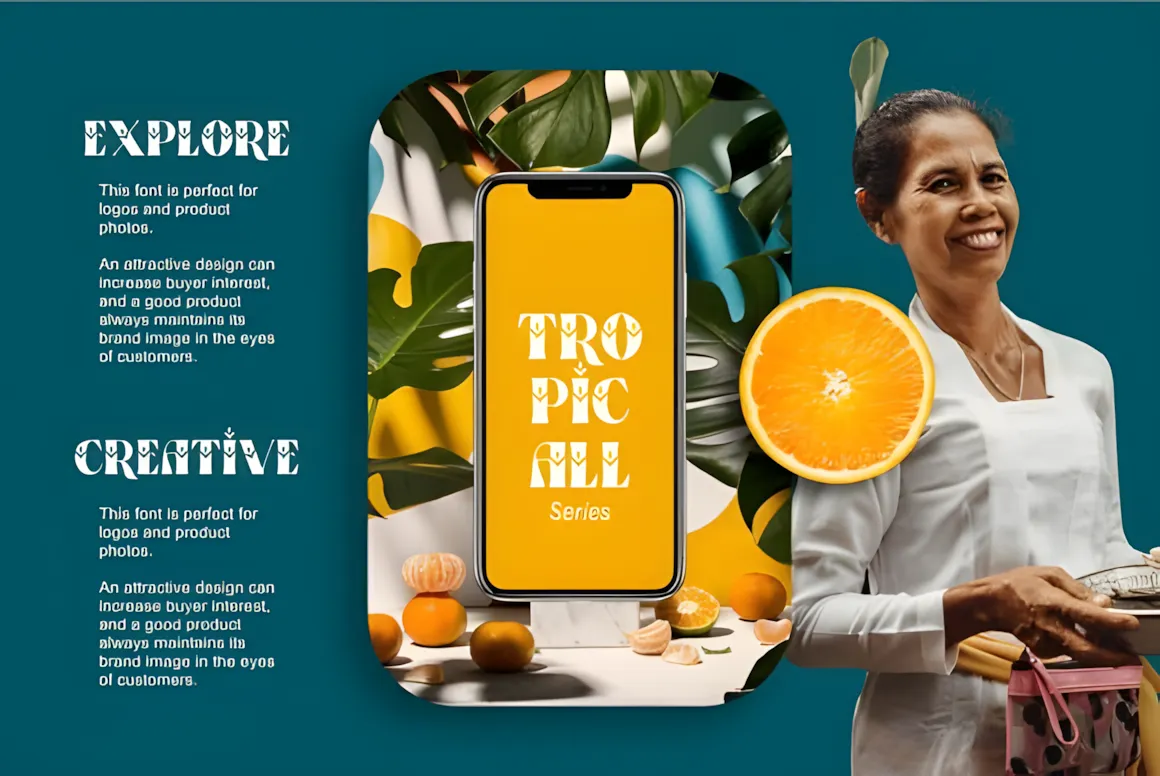
Bristol is a stylish font that mixes classic and modern styles. It's simple and well-balanced, so it's great for presentations that need to look professional and polished.
Bristol looks bold and classy, and it's easy to read. It works well for titles, quotes, or anything that needs to grab attention. Use it with a simple font for the main text to keep things balanced.
3. Flamingo
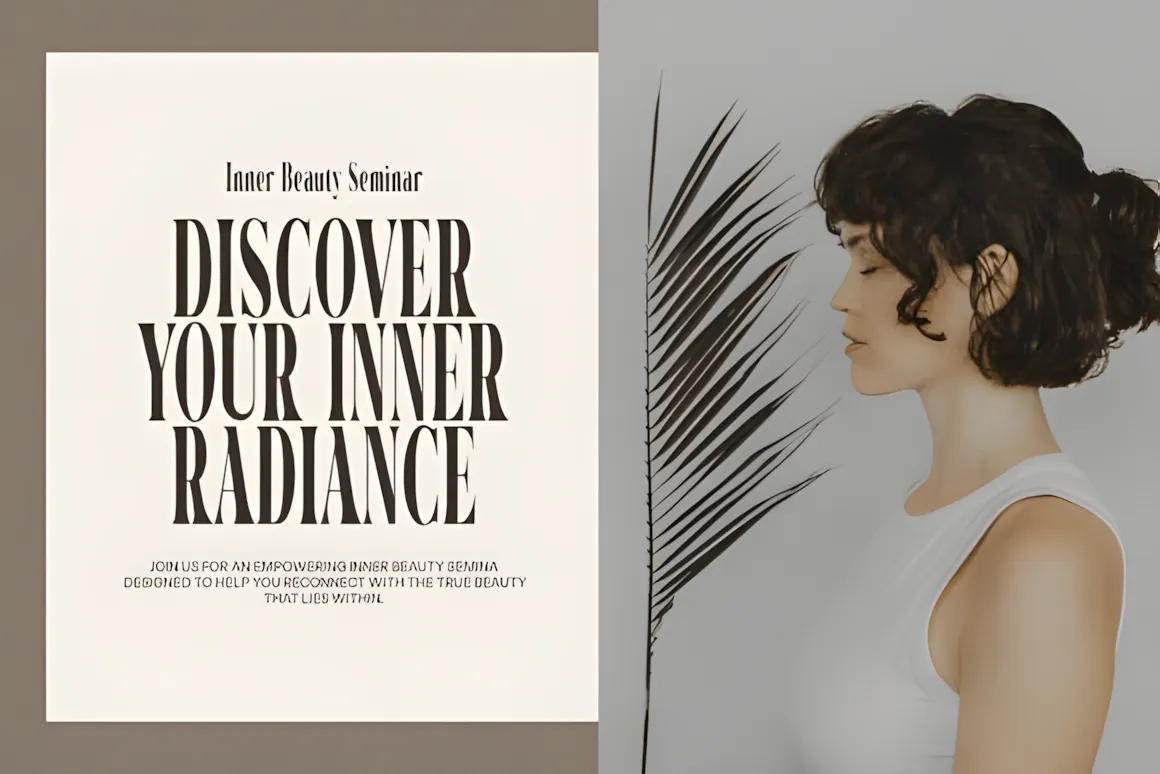
Flamingo is a new font that blends modern and vintage styles. Its stylish details and smooth curves make it a great choice for presentations that want to feel classy and modern.
This font is balanced and easy to read, but it still has personality so your slides don't look boring. It's great for titles, quotes, or anything that needs to make a statement. Using it with a simple font for the main text will create a nice contrast and improve your presentation.
4. Estetique
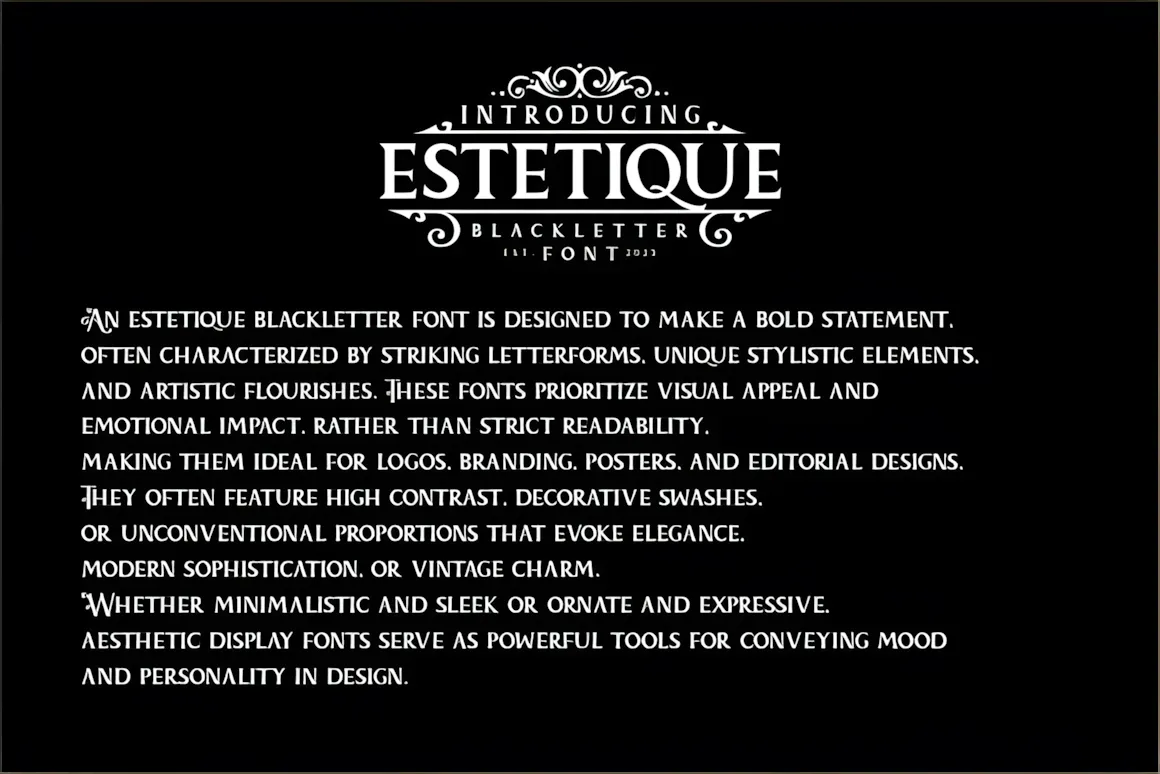
Estetique is a modern font that looks fancy and stylish. It's clean and has a few curves, making it perfect for presentations that need to show off some class.
This font is sleek so it is easy to read. It makes your slides look great. It's perfect for titles, quotes, or anything that needs to make a stylish statement. Try it with a fancy font for the main text to create a nice contrast.
5. Higlean
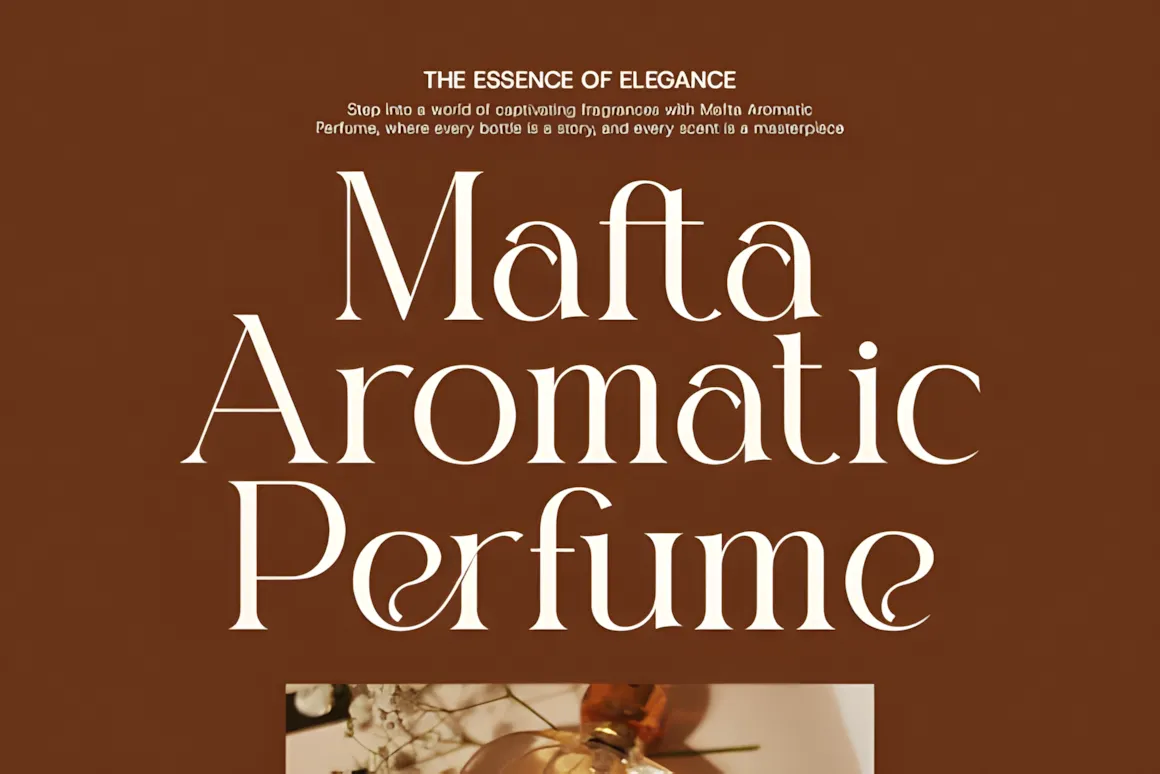
Higlean is a modern serif font that combines new and old styles. Its detailed lines look great in presentations that need to feel professional and stylish.
The simple design of this font makes it easy to read and adds some style to your slides. It's great for titles, quotes, or anything that needs to make a statement. Try it with a simple font for the main text to create a balanced look.
6. Cellien
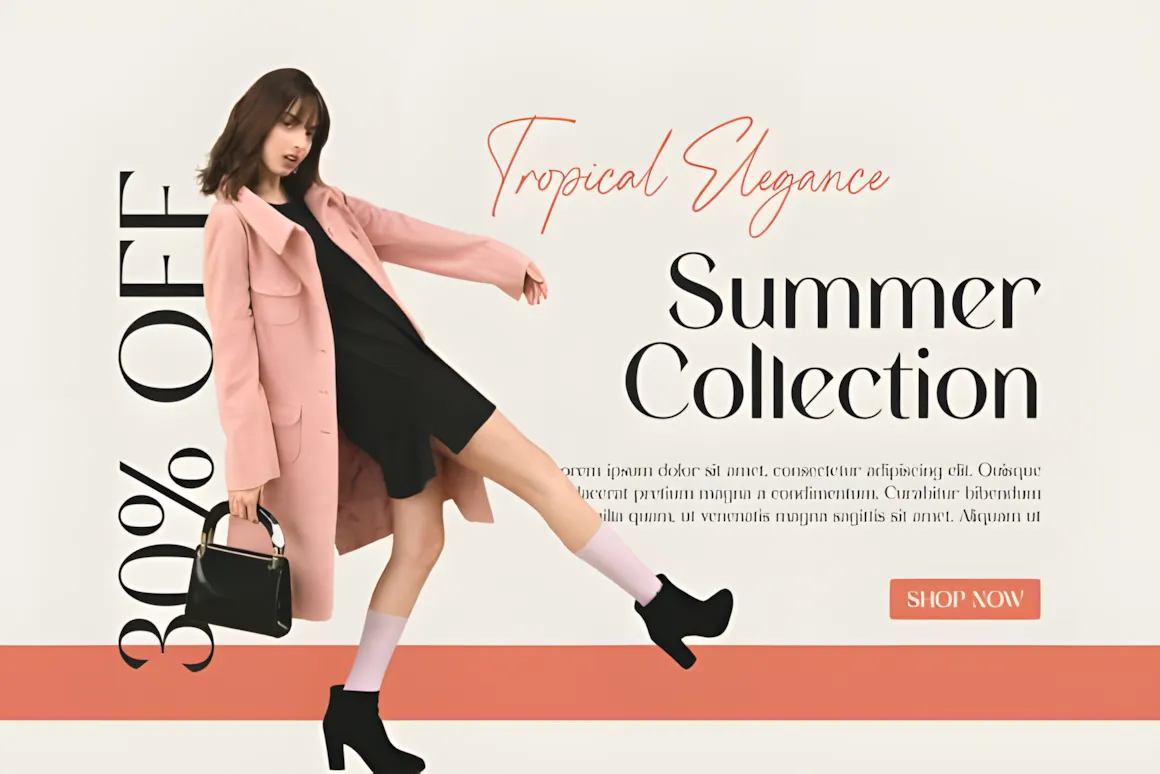
Cellien is an advanced font, both modern and classic. Its lines give it a great look for presentations that need to be stylish and business-like, not compromising on clarity. Put it in titles, quotes, or anything that needs to make a classy statement. A mix of Cellien with a simple font for the main text will make the perfect contrast and maintain the style of your presentation.
7. Melona Woman
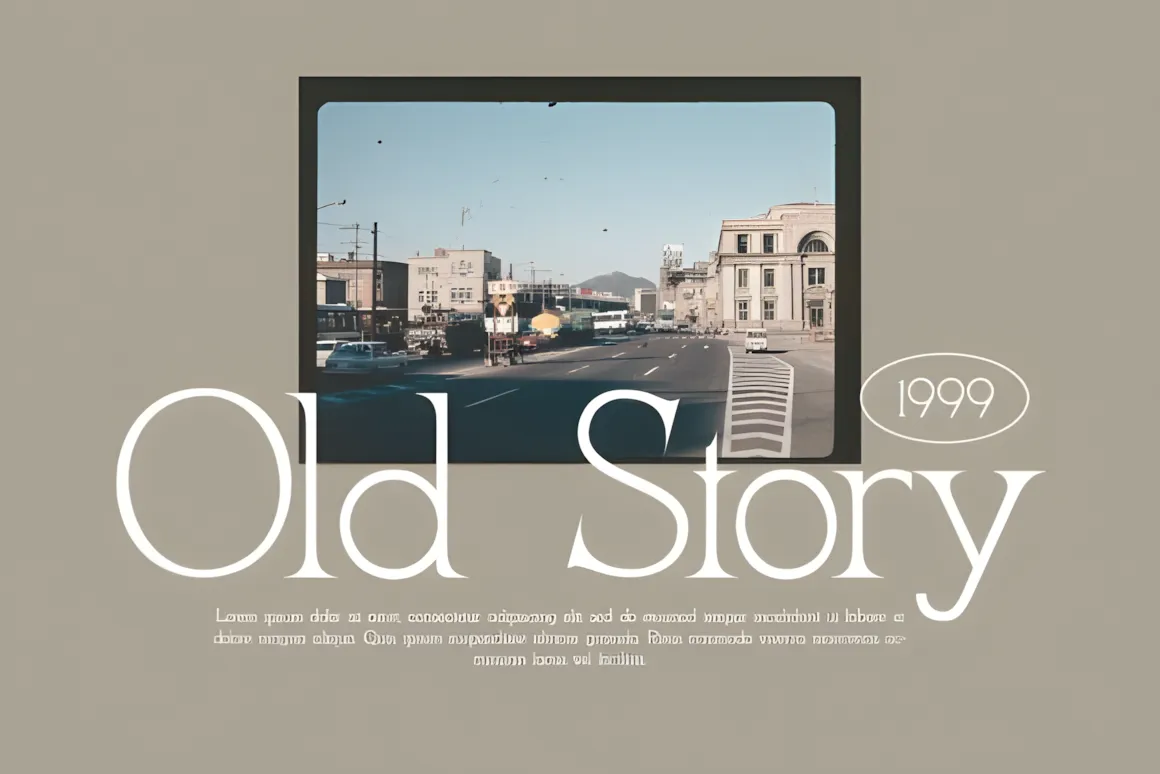
Melona Woman is a fancy font that adds personality to your presentation. Its flowing design makes it great for presentations that need a personal, artsy touch.
Melona Woman is great for a title slide, a quote, or anything that needs to make a statement. It looks balanced when used with a simple font as the main text.
8. Saficel
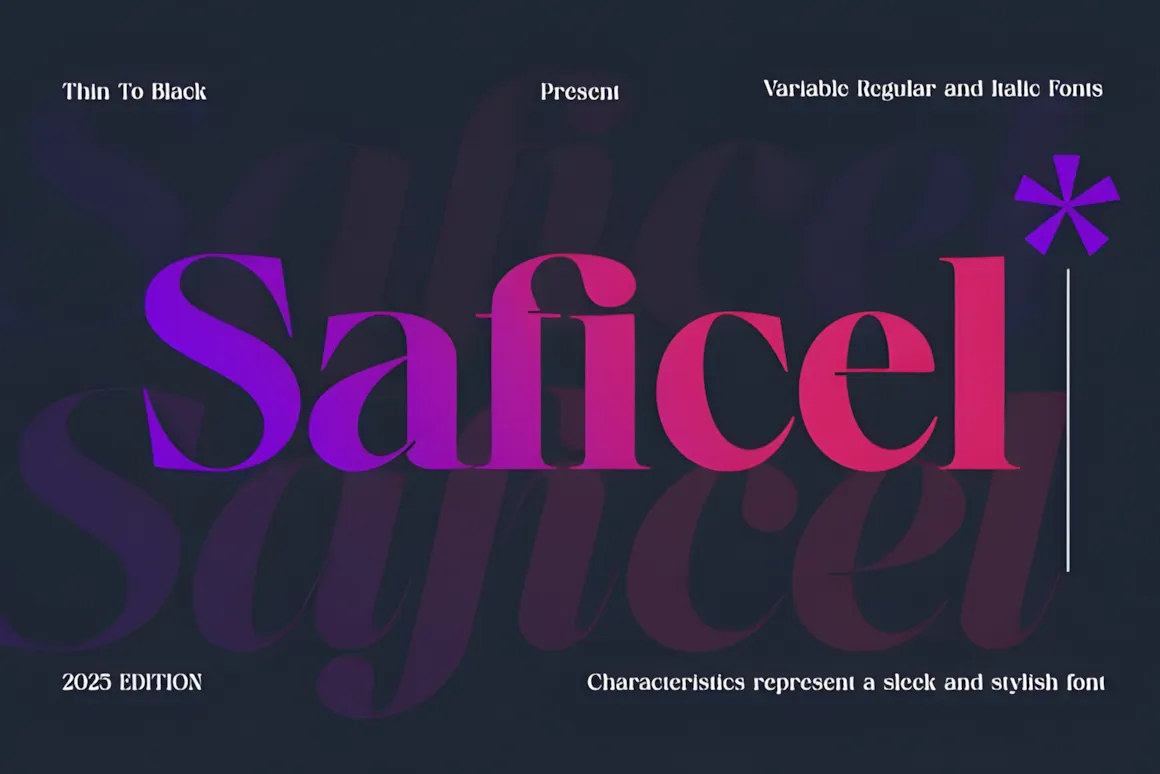
Saficel is a modern font. It is ideal when you need to do a business presentation and make sure the audience follow the point.
The lines make Saficel ideal for titles and body text. It looks fresh, pair it with another font to show a contrast on your slides.
9. Balancing
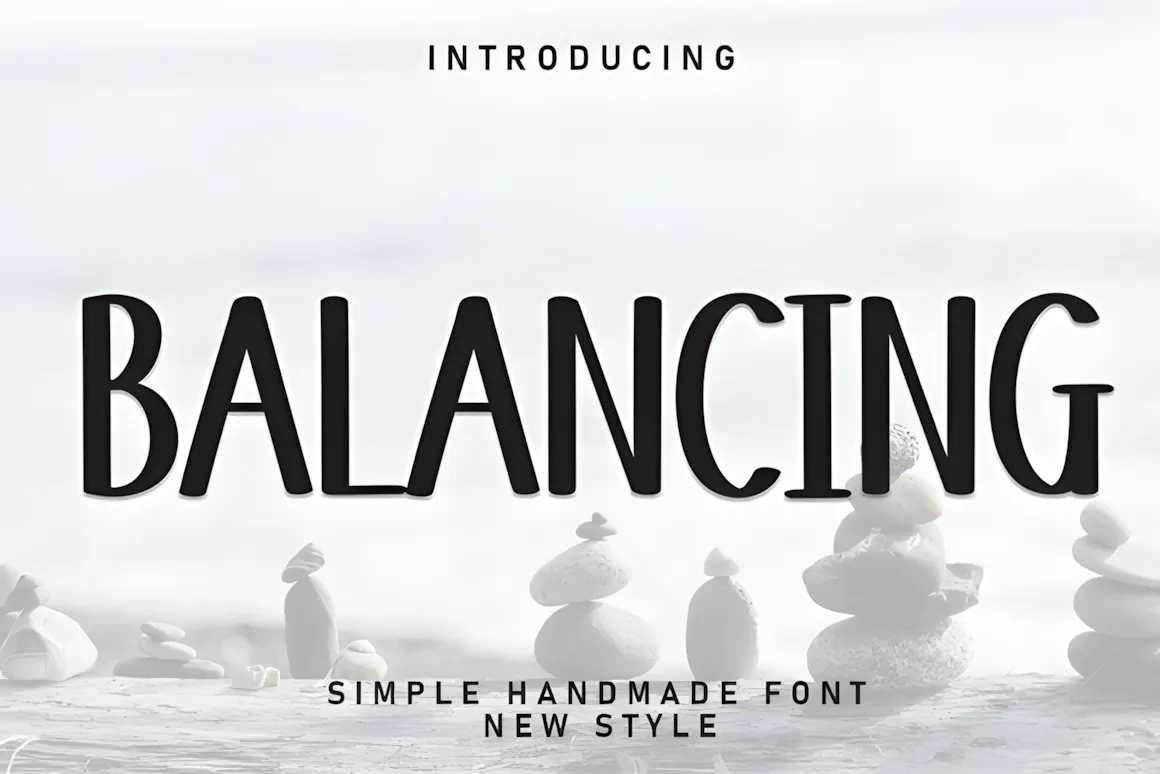
Balancing is a font with a modern vibe. It is awesome in presentations.
Balancing is easy . Your slides will be eye-catching, with an easy design to read and follow. You can use it as a title font and mix it with another body-text to create an elegant contrast.
10. Dringk
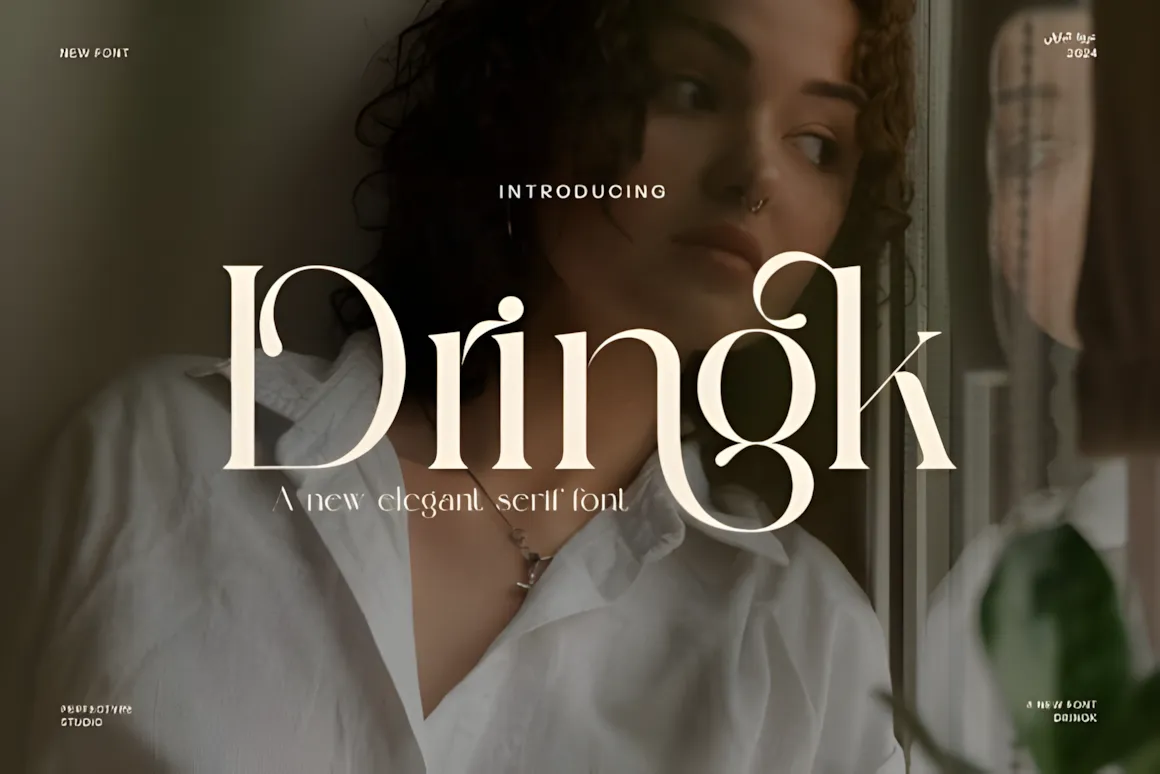
Dringk is a fun font that will add a touch of personality to your slides. Its style makes it great for presentations, where charm is the goal.
It is awesome to stress words or use it on a heading . Pair it with a normal font to make it easy to follow.
11. Molcer
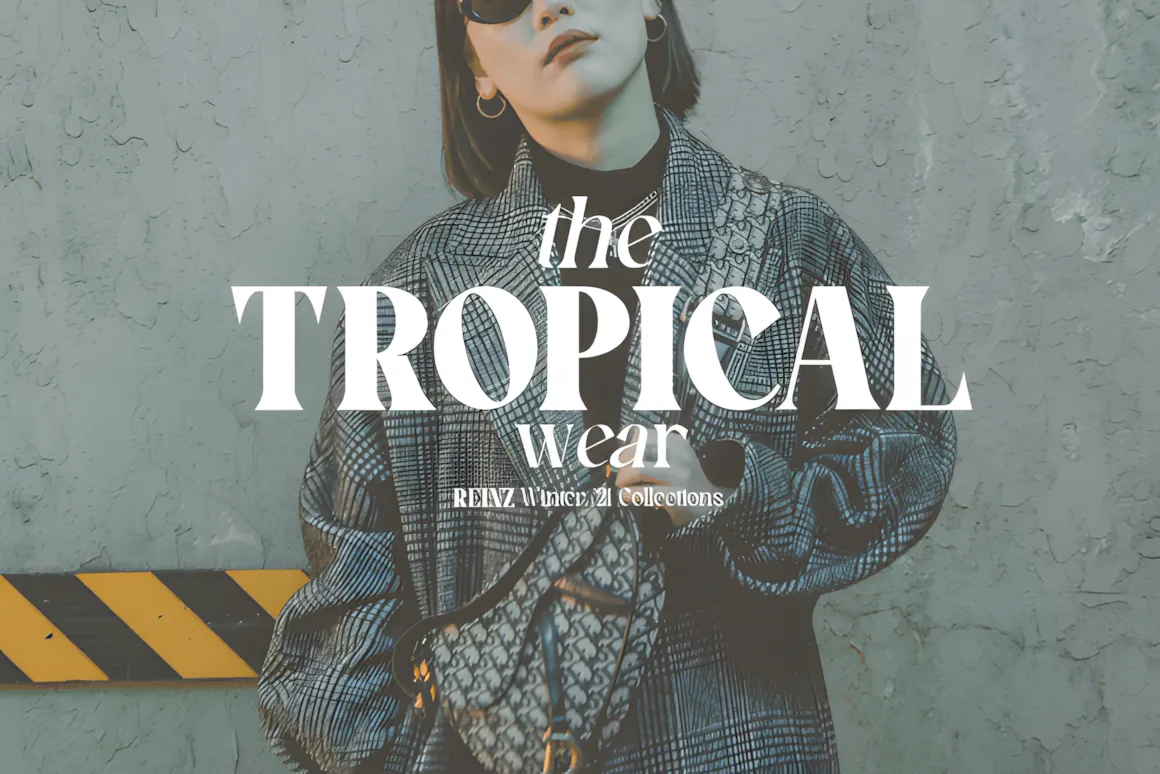
Molcer is a font exuding class. It is awesome for your corporate presentation. Molcer with its lines makes your slides easy to follow and stylish.
The font is awesome for headings and body text ,so any presentation will look awesome with this one and easy to read. Put it in a marketing presentation that wants a high touch.
Picking the right fonts can make a difference in your presentation. The right fonts can add style and help get your message across clearly. The fonts make an effect on the presentation.